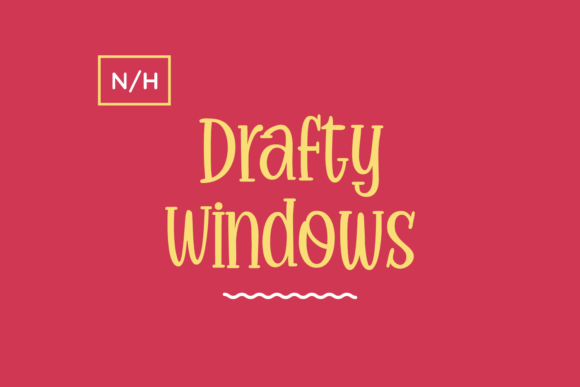
Welcome to the captivating world of Drafty Windows, a script font that will ignite your creativity and add a touch of whimsy to your designs. With its playful and charming style, this font is a perfect choice for those seeking to create captivating graphics, logos, and web designs that stand out.
Drafty Windows is the brainchild of nhfonts, a renowned font designer known for creating fonts that are both visually appealing and highly functional. Inspired by the carefree spirit of childhood, this font captures the essence of playful innocence and boundless imagination. As its name suggests, Drafty Windows evokes the feeling of looking out a window on a rainy day, watching the raindrops dance and swish across the glass.
This font is brimming with personality, featuring a delightful combination of thick and thin strokes that create a dynamic and visually appealing texture. The unique letterforms, with their charming curves and playful details, add a touch of whimsy and lightheartedness to any design. Whether you're creating invitations for a children's party, designing a whimsical poster, or adding a personal touch to your blog, Drafty Windows is the perfect choice.
But beyond its aesthetic appeal, Drafty Windows is also incredibly versatile. Its bold and eye-catching style makes it ideal for creating logos and branding materials that demand attention. The font's distinct character lends itself perfectly to creating unique and memorable designs that will leave a lasting impression on your audience. Whether you're a seasoned designer or just starting, Drafty Windows is a font that will inspire and empower you to create captivating visuals that truly shine.
So embark on a creative journey with Drafty Windows and let your imagination soar. Dive into a world of boundless possibilities, where your designs come alive with charm, playfulness, and a touch of whimsical magic. Experience the joy of creating designs that resonate with your audience, leaving them captivated and inspired. Embrace the Drafty Windows experience today and unlock the full potential of your creativity!